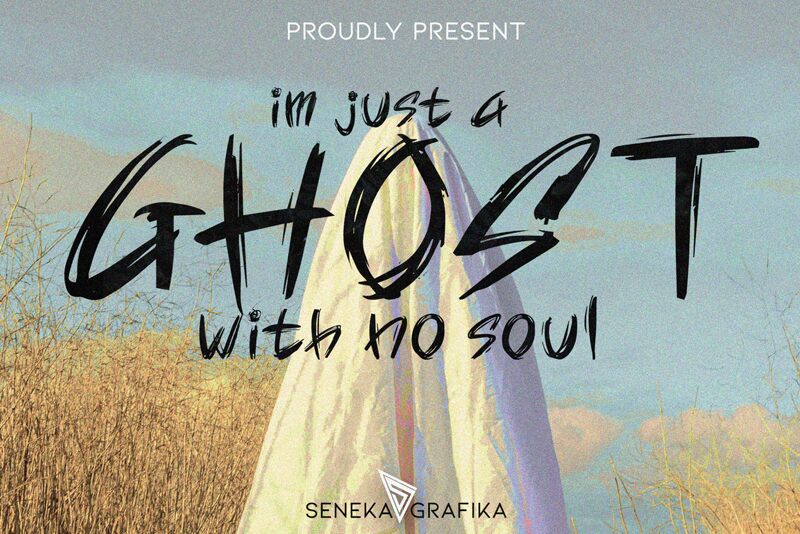
Introducing Ghost, the bold and edgy script font designed by Muhammad Helmi. With its grungy, trash-style aesthetic, Ghost is perfect for projects that demand a rebellious and confident feel. Its thick lines and unique curves make it ideal for designs that require a punch of personality, such as album covers, posters, or fashion branding. The font's distinct style lends itself to creative ventures like streetwear lines or skateboards - the possibilities are endless. Make your message stand out with Ghost - the ultimate choice for those who dare to be different.
Ghost
Seneka Grafika
Muhammad Helmi
This font was created By Seneka Grafika (Helmi) From Bandung - Indonesia .